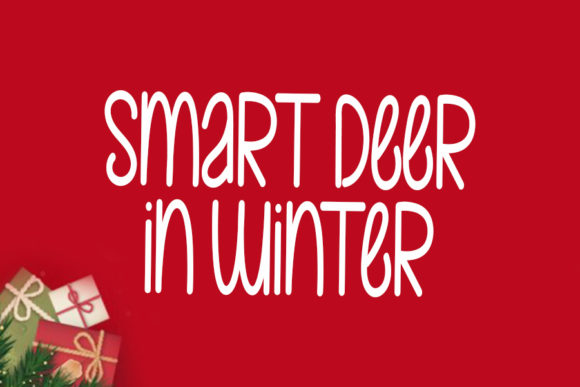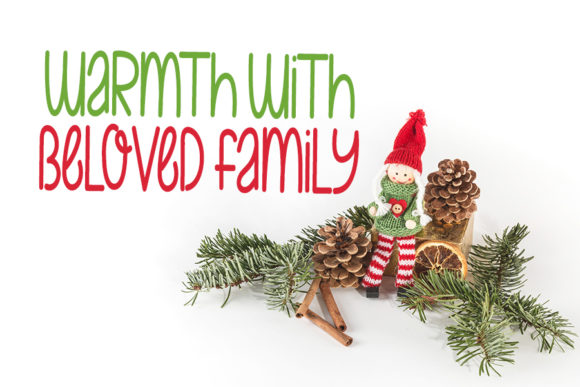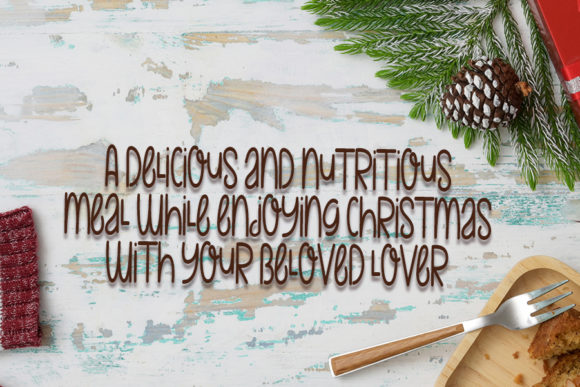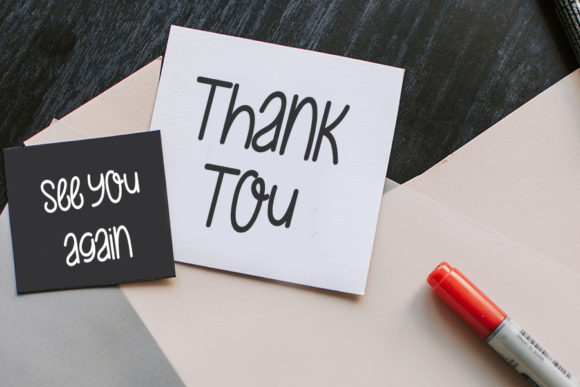
The Magic of Handwritten Holiday Cheer
As the snowflakes start to fall and the holiday season approaches, many of us find ourselves in the midst of creative chaos, scrambling to find the perfect font to capture the essence of the season. It’s the moment when we dig through our font collections, searching for that special something that screams “holiday cheer” – and that’s where the Happy Christmas Font comes in.
Perfect for crafting holiday greeting cards, gift tags, and other festive projects, the Happy Christmas Font is a beautiful, handwritten font that exudes warmth and friendliness. With its clean and neat design, it’s a valuable addition to any designer’s toolkit, adding a touch of personality to even the most mundane projects.
Key Features of Happy Christmas Font
- Size: The font comes in 4 different sizes: Regular, Bold, Italic, and Bold Italic, catering to various design needs.
- Resolution: Happy Christmas Font supports high-resolution displays, making it suitable for use in digital media, such as websites, social media, and mobile apps.
- Unique Characteristics: The font features a playful, festive design with a mix of bold and cursive elements, perfect for creating a cheerful atmosphere during the holiday season.
Happy Christmas Font Review
First impressions are everything, and Happy Christmas Font makes a bold statement. The ✨ bold, playful feel of this font is perfect for the holiday season. It’s sure to grab the attention of anyone who sees it. I love how the font is available in both regular and bold weights, giving users plenty of options for their designs.
- The font is extremely festive and would be a great choice for any holiday-themed project.
- The bold weight of the font is perfect for creating eye-catching headlines.
- The font is well-suited for use in digital and print designs.
That being said, there are a few limitations to consider. ⚠️ One of the biggest issues is that the font is only available in a limited range of languages. If you need to create designs for a global audience, this might not be the best choice. Additionally, the font’s boldness can sometimes make it difficult to read in certain contexts.
Overall, I think Happy Christmas Font is a fun and festive choice for holiday-themed designs. While it may not be the best option for every project, it’s definitely worth considering if you need a bold, playful font that’s perfect for the holiday season.
Use the “Happy Christmas Font” to create festive holiday graphics, cards, and social media posts.
Combine the font with holiday-themed images and graphics for a cohesive look.
Experiment with different font sizes, colors, and styles to create a unique design.
Holiday cards and invitations
Holiday social media posts and graphics
Christmas party invitations and decorations